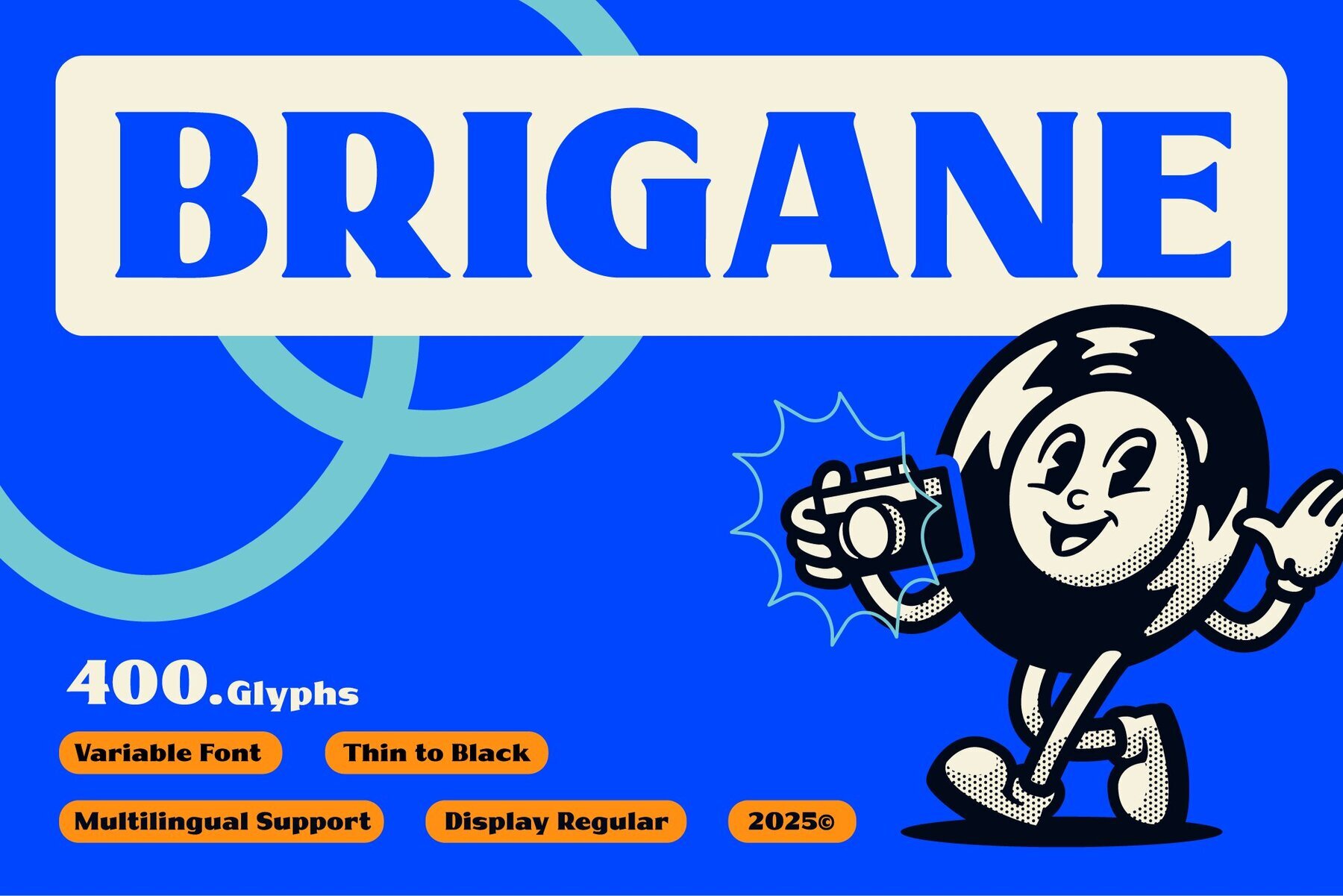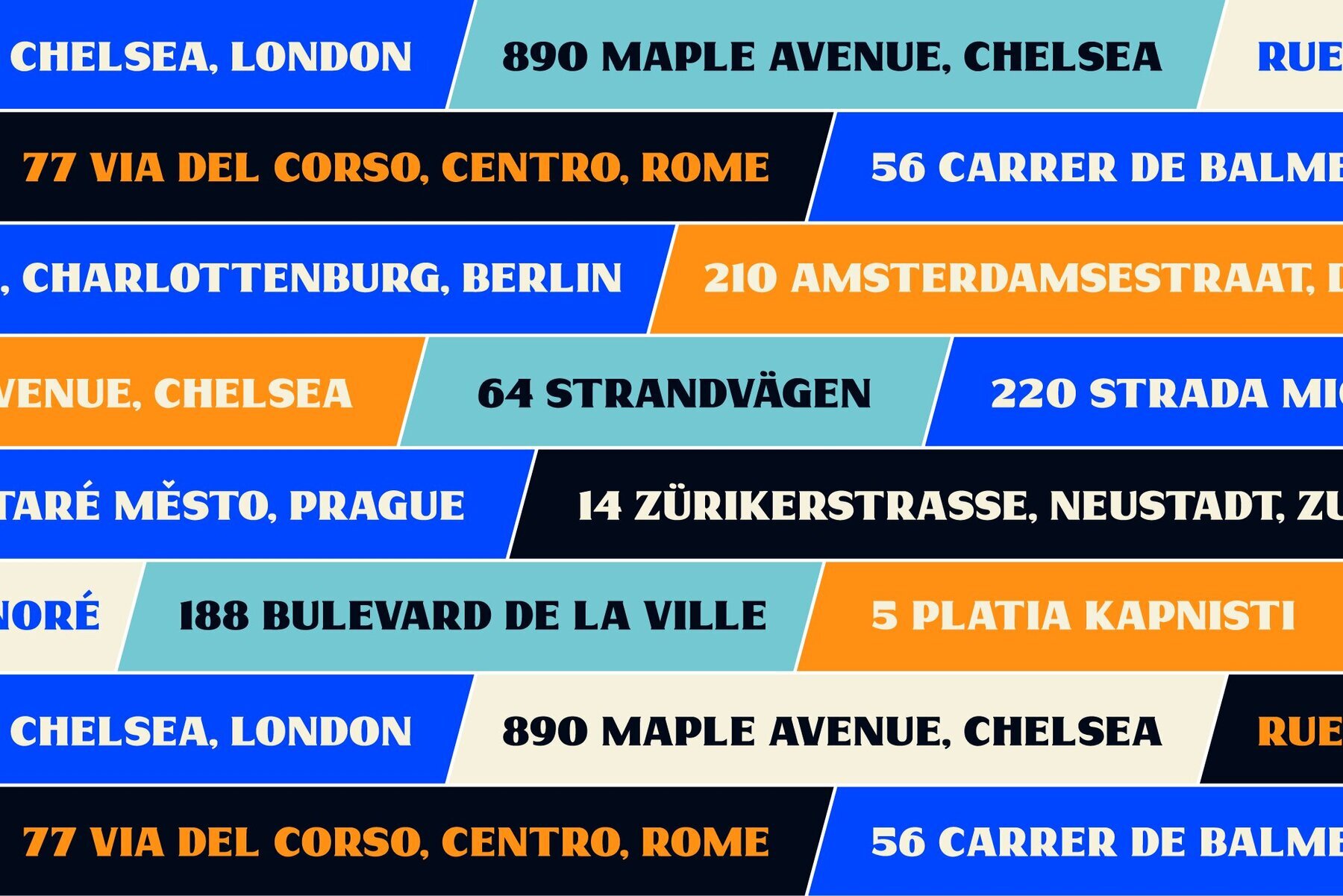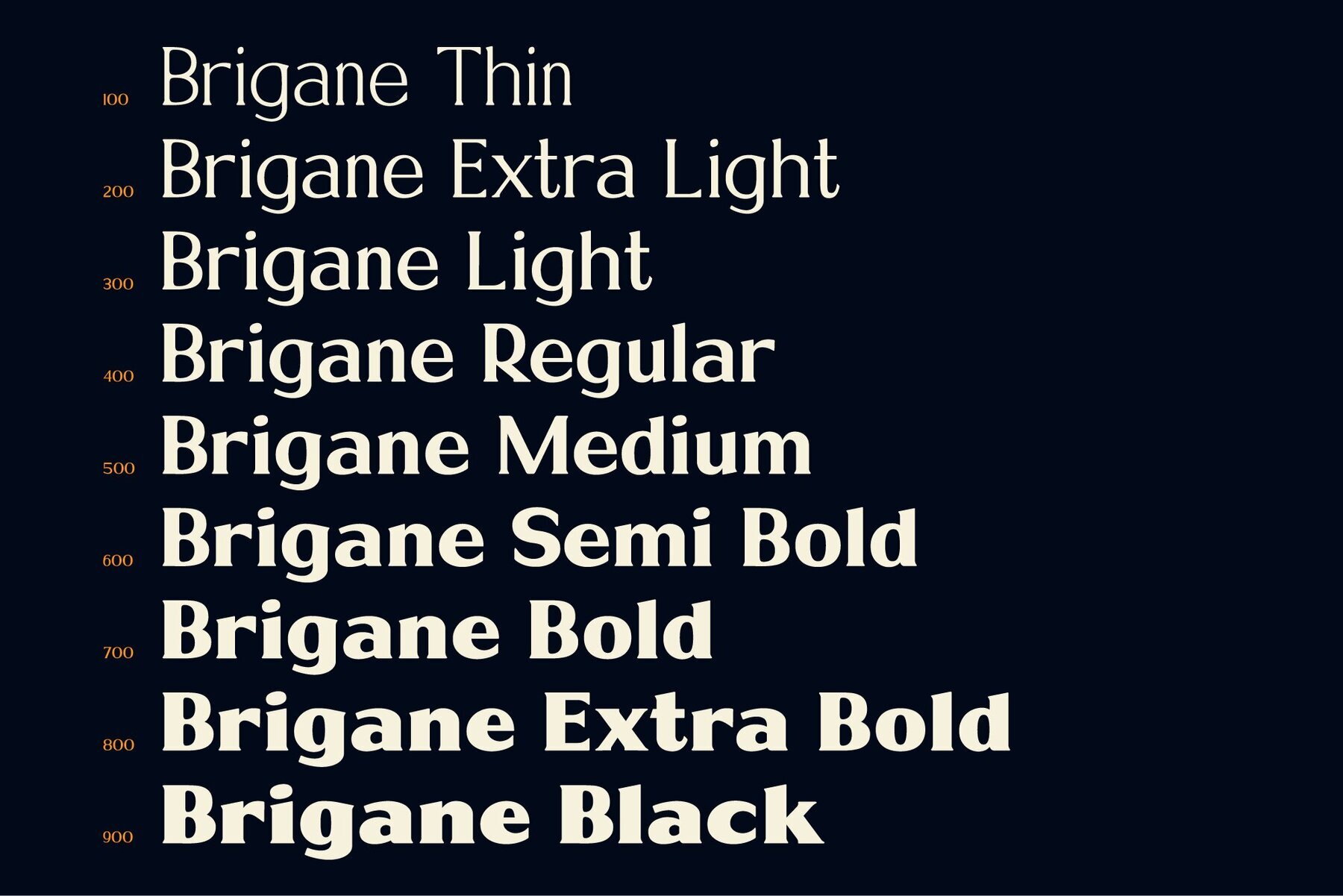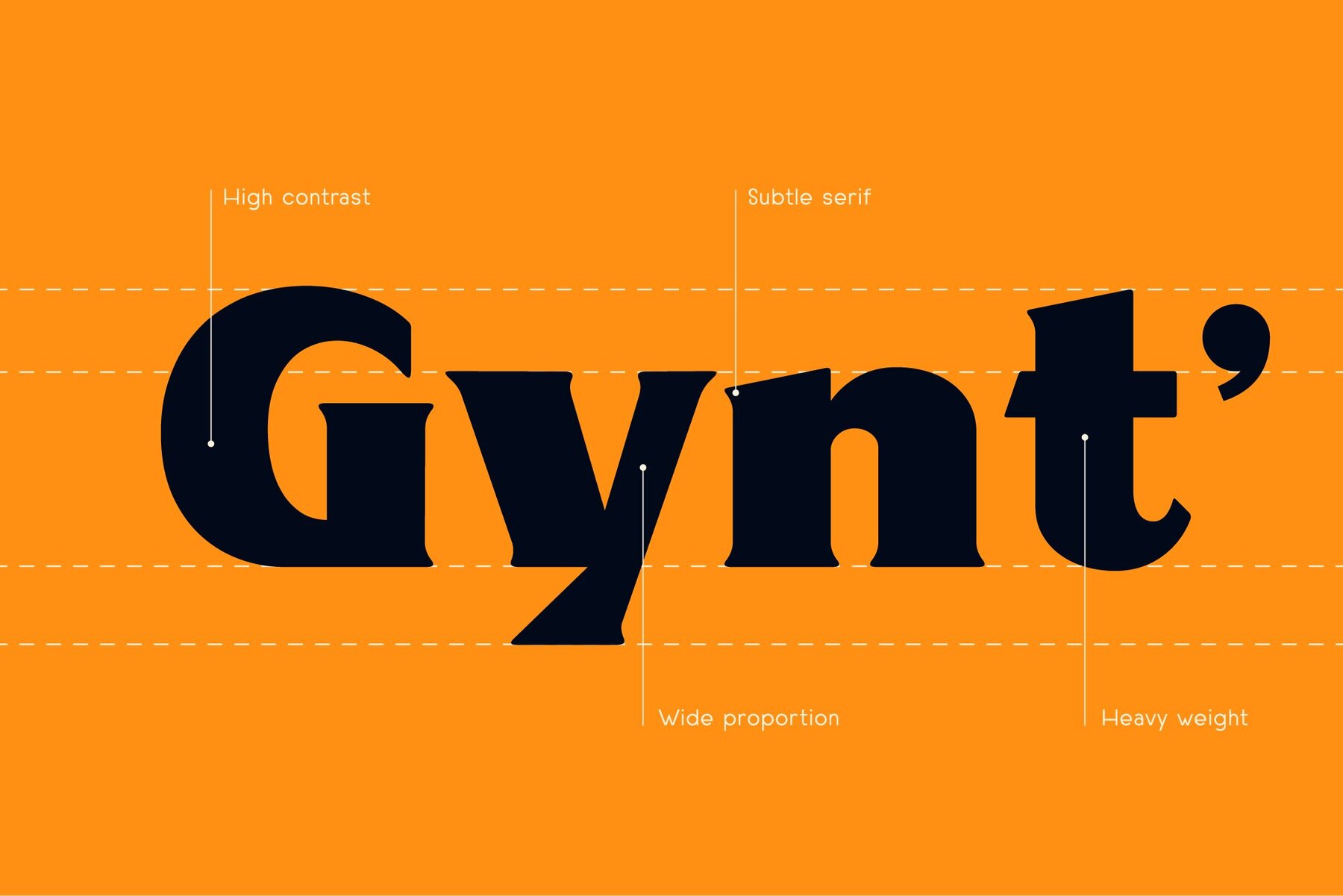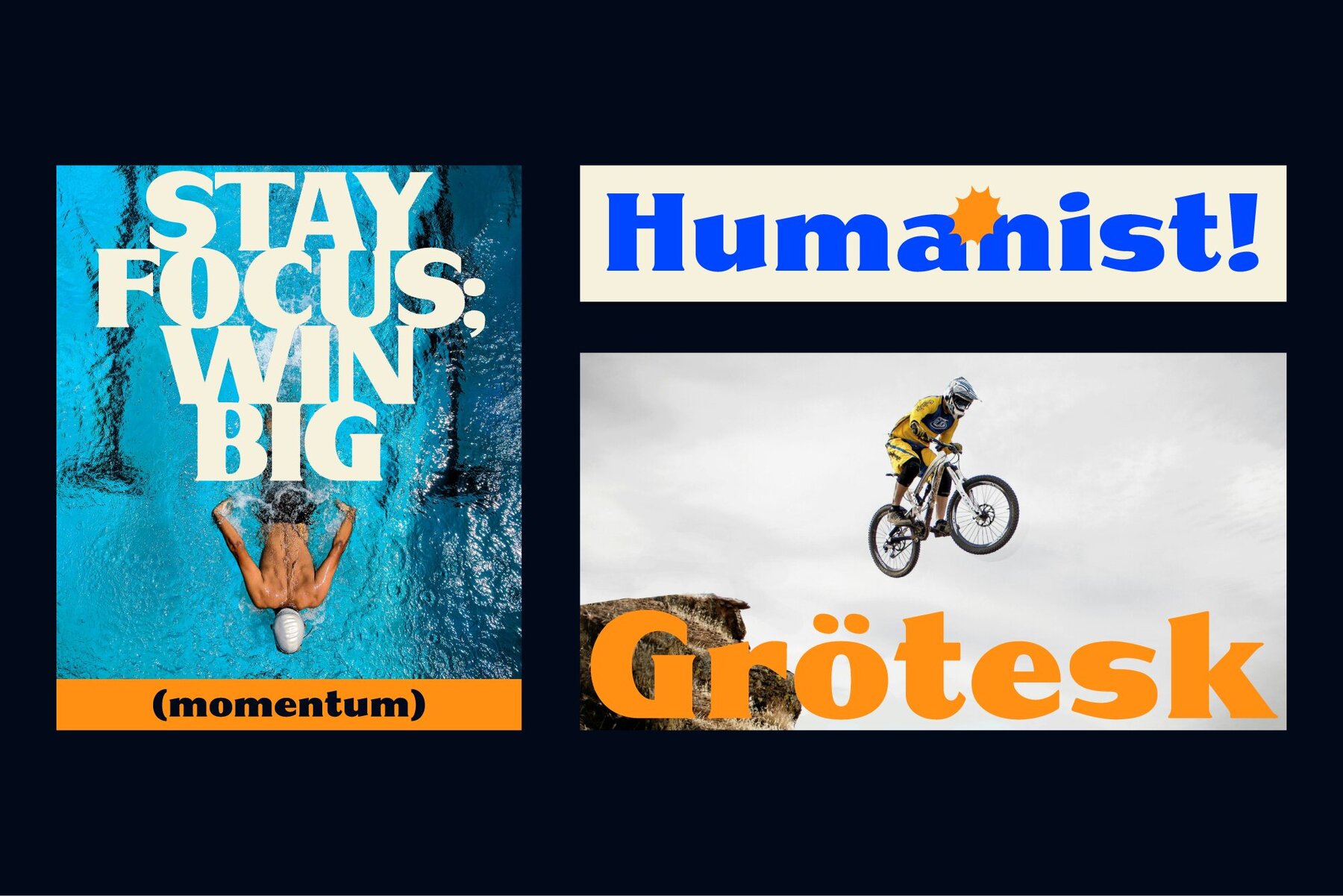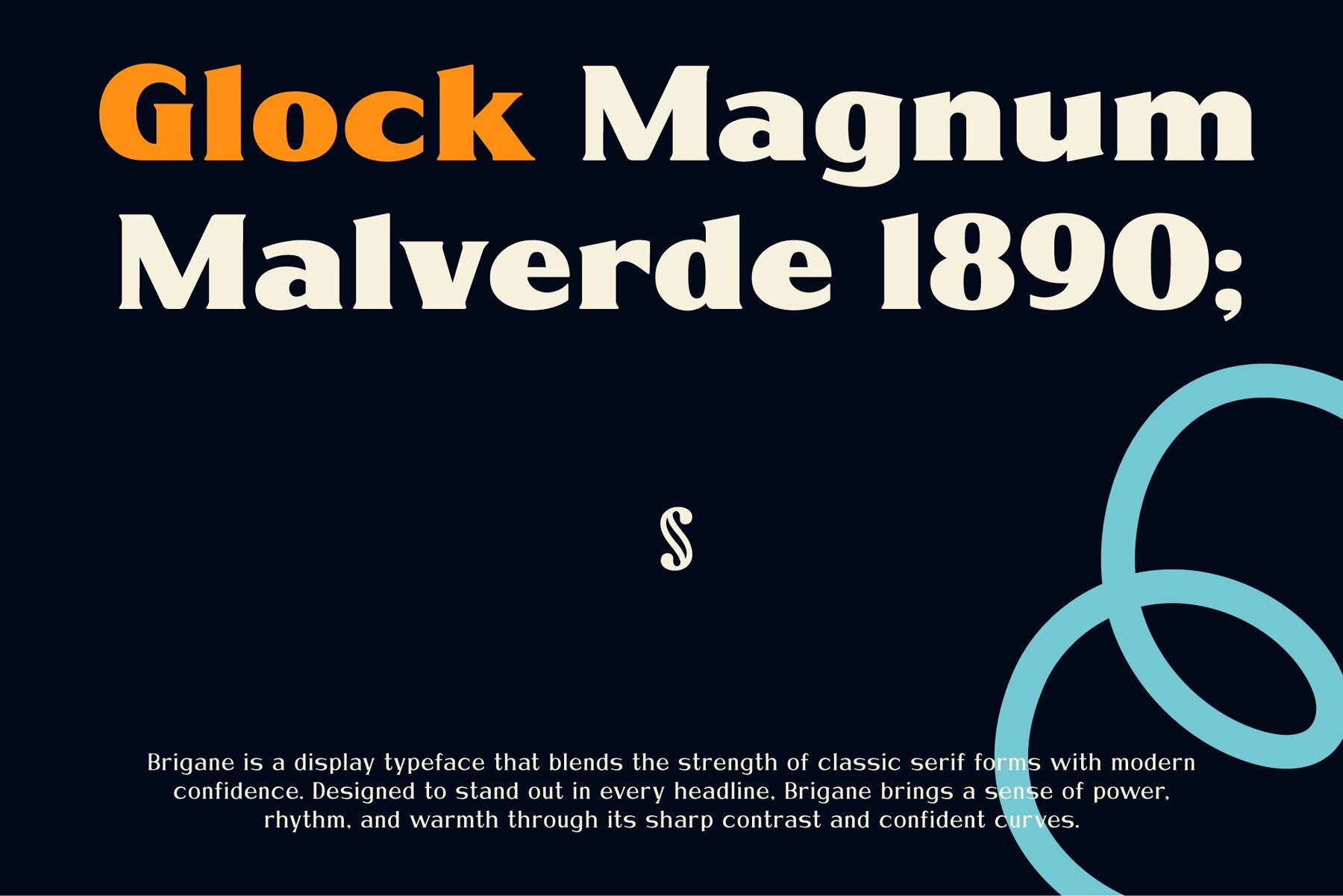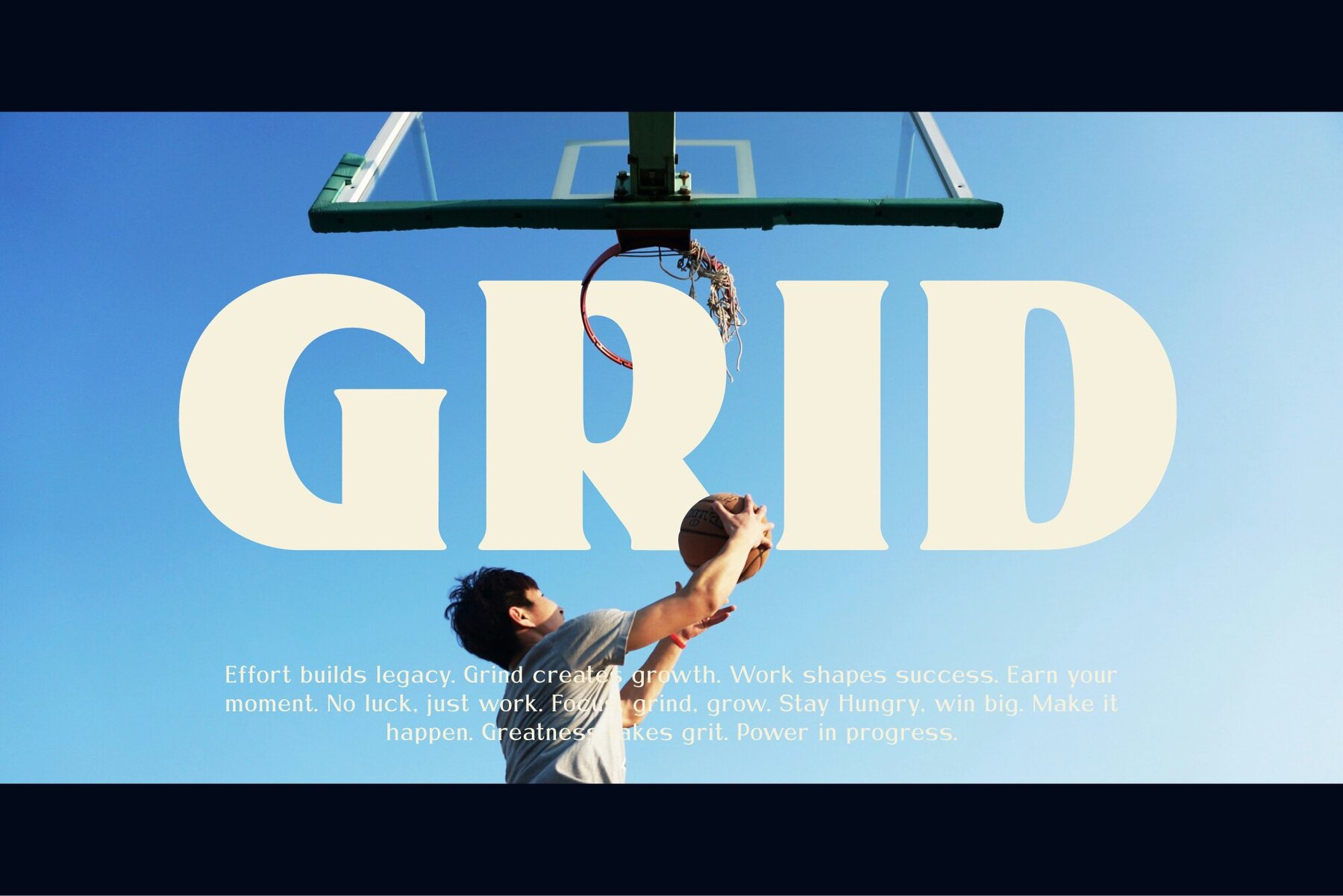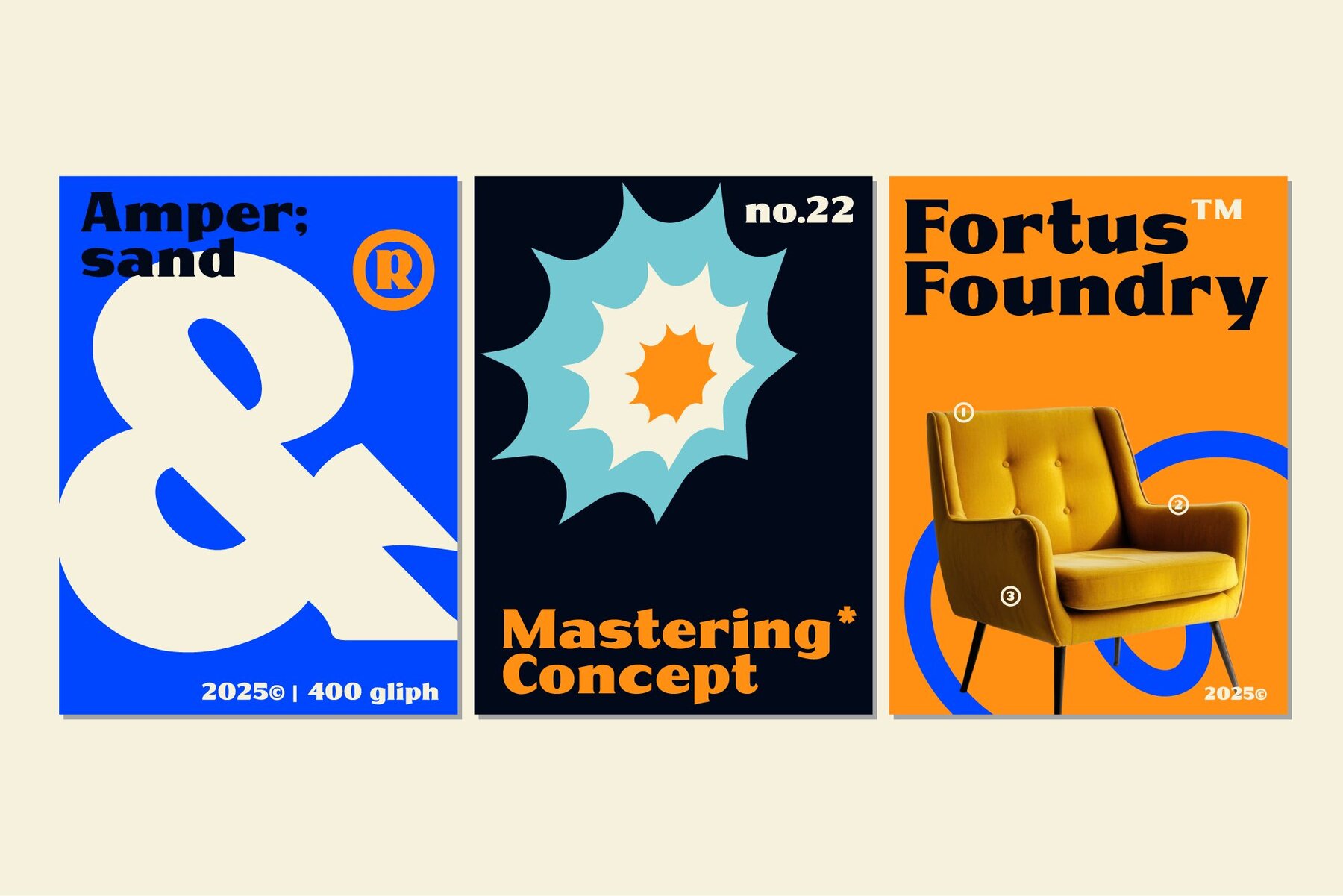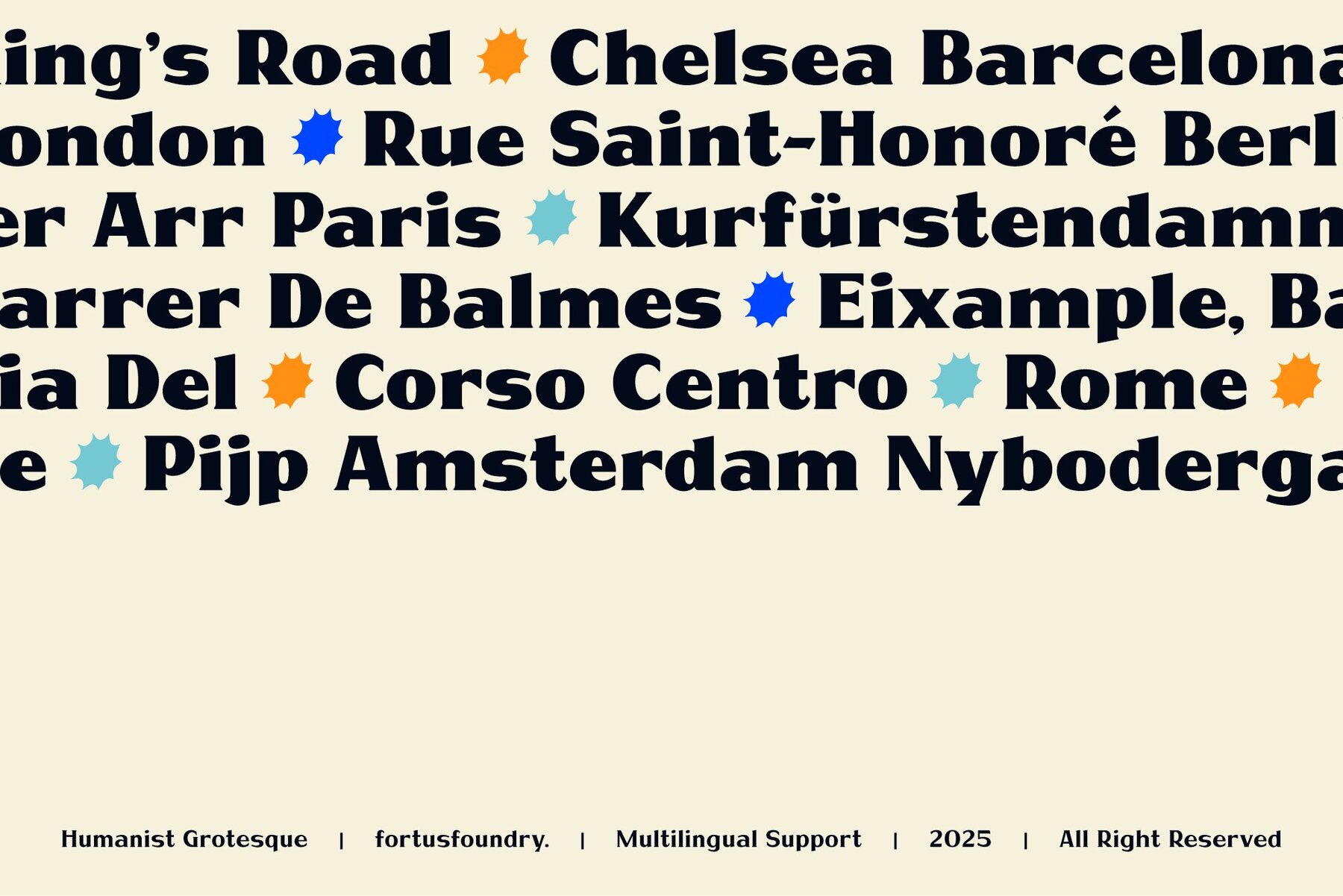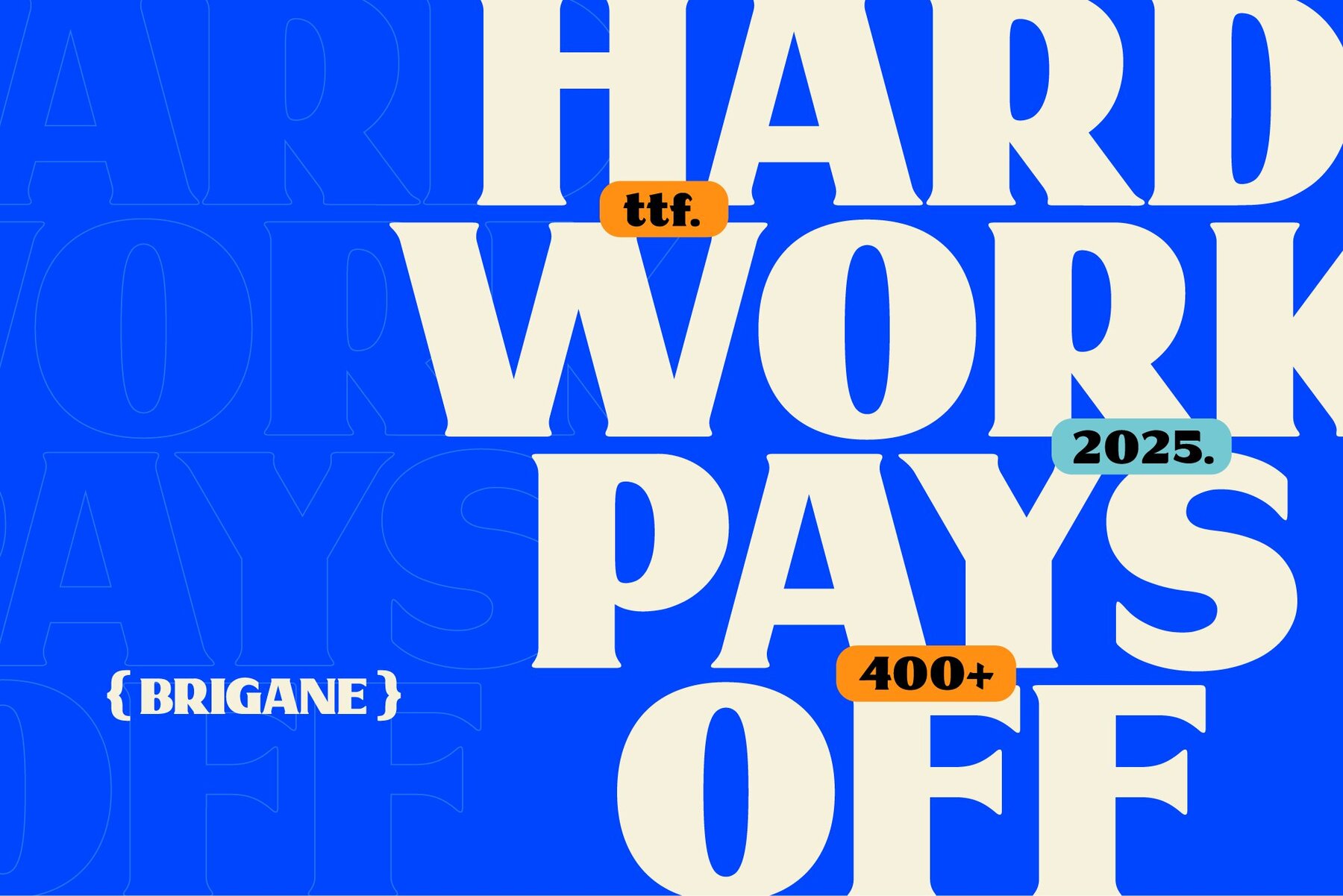
Brigane Font
Brigane gracefully combines the timeless elegance of classic serif design with a contemporary edge. Its pronounced contrast, generous proportions, and refined serifs make it an undeniable attention-grabber in any headline. The robust structure and flowing curves impart a sense of movement and individuality, making it a superb choice for projects that embody both tradition and innovation. From impactful editorial headlines and engaging sports campaigns to distinctive branding and eye-catching posters, Brigane covers it all. Features: Whether featured in bold advertising, lively packaging, or assertive brand identities, Brigane brings energy, clarity, and exceptional craftsmanship to every design.Brigane: Sophisticated Display Typeface